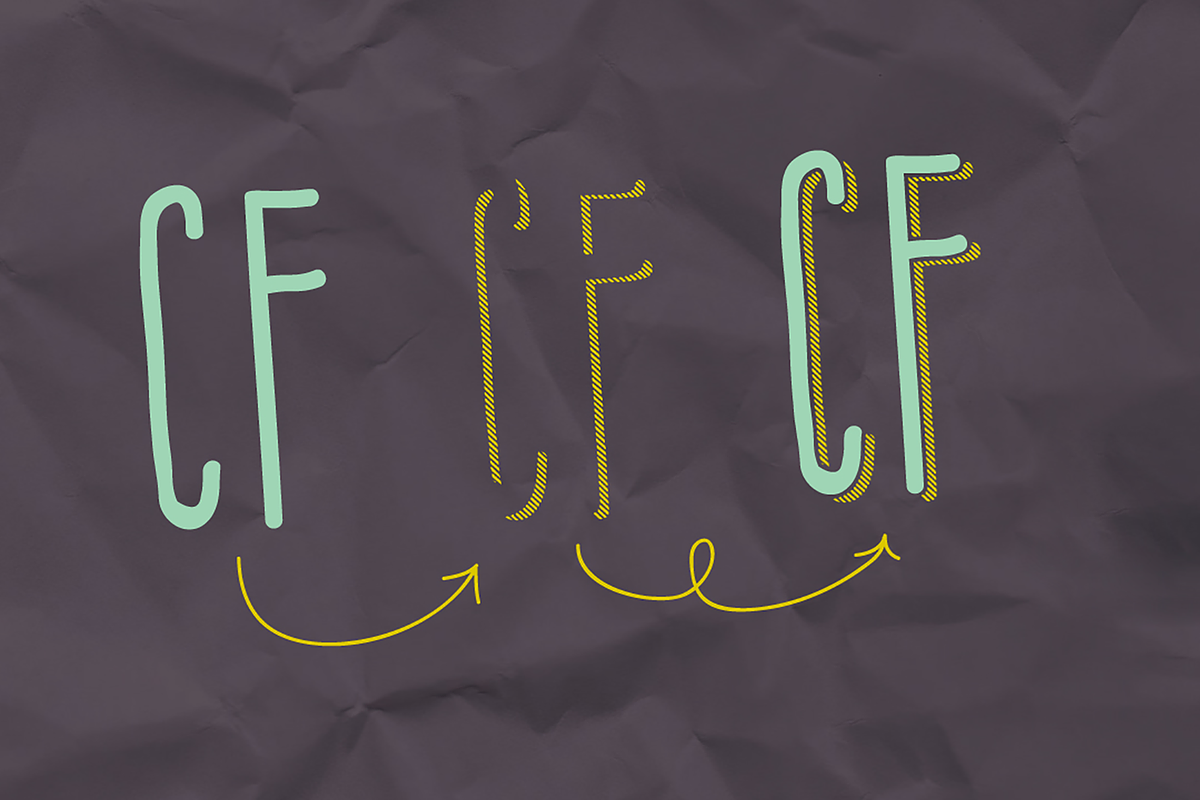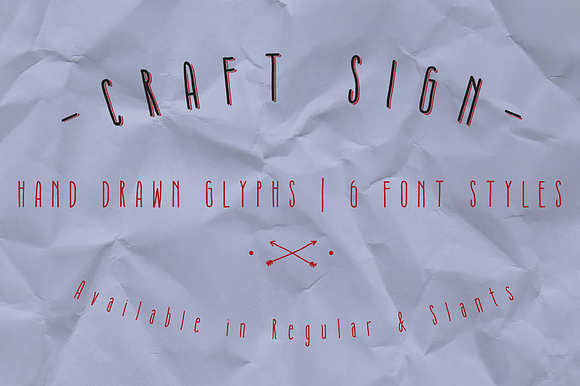
Craft Sign Family - Hand Drawn Font
Introducing Craft Sign family font by We are colt.
Craft Sign has been created to give a crafty, hand-drawn look to your project. This font features a free shadow only style which can be overlaid into the regular Craft Sign to create colour combinations.
Created from a hand-drawn original, complete with glyphs for a unique look. This is your perfect font for scrap and photo books, logos, invitations, cards, Instagram posts, and product packaging.
This set includes uppercase and lowercase letters, numerals, a range of punctuation and ligatures. Free shadow set included.
This font will add a really unique, vintage and bespoke finish to your project.
- This set includes uppercase and lowercase letters, numerals, a range of punctuation and ligatures.
- 6 font styles
- Free shadow sets
- Regular and slants
- Upper and lowercase
- Craft Sign Regular
- Craft Sign shadow Regular
- Craft Sign Italic
- Craft Sign shadow Italic
- Craft Sign only shadow Regular
- Craft Sign only shadow Italic